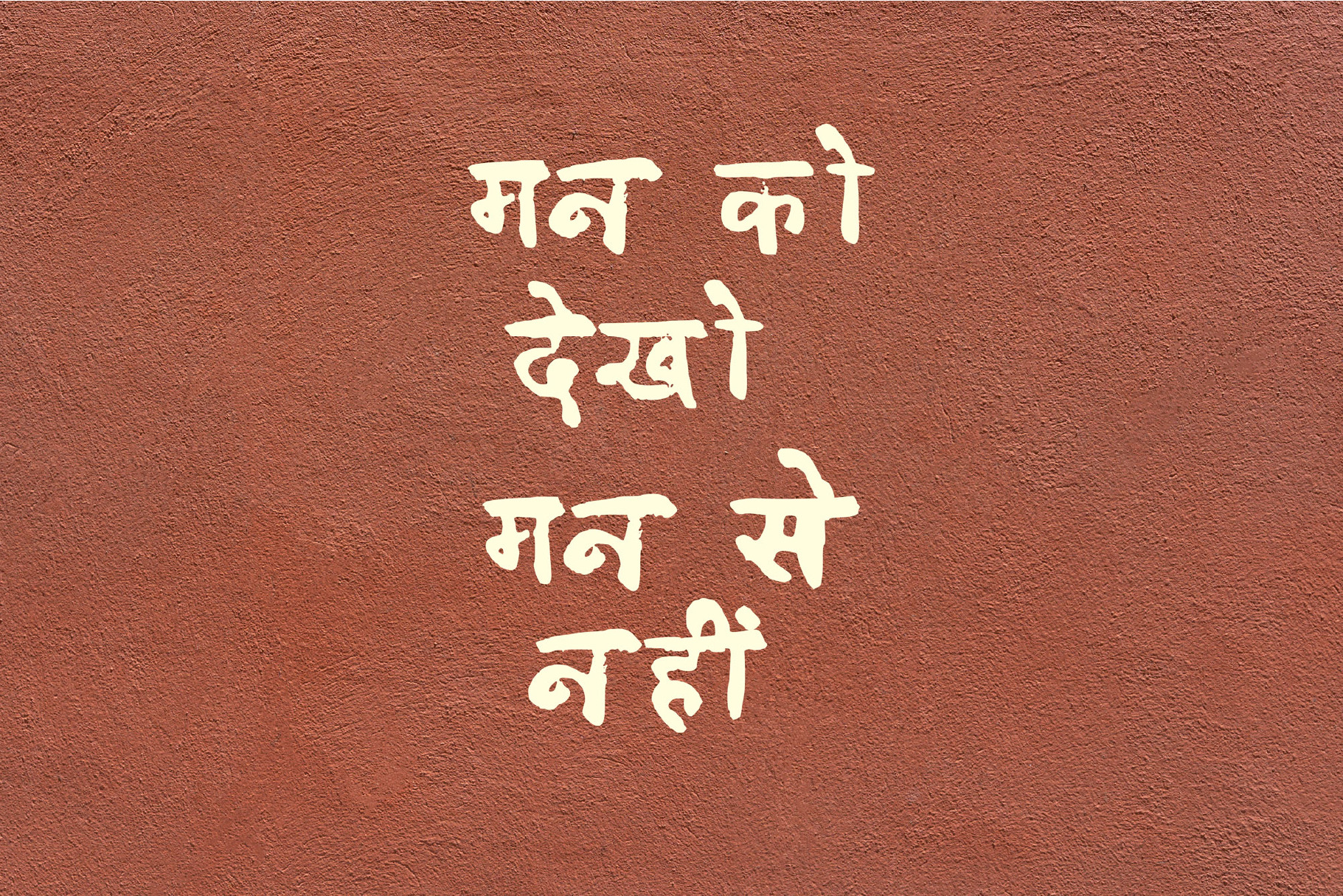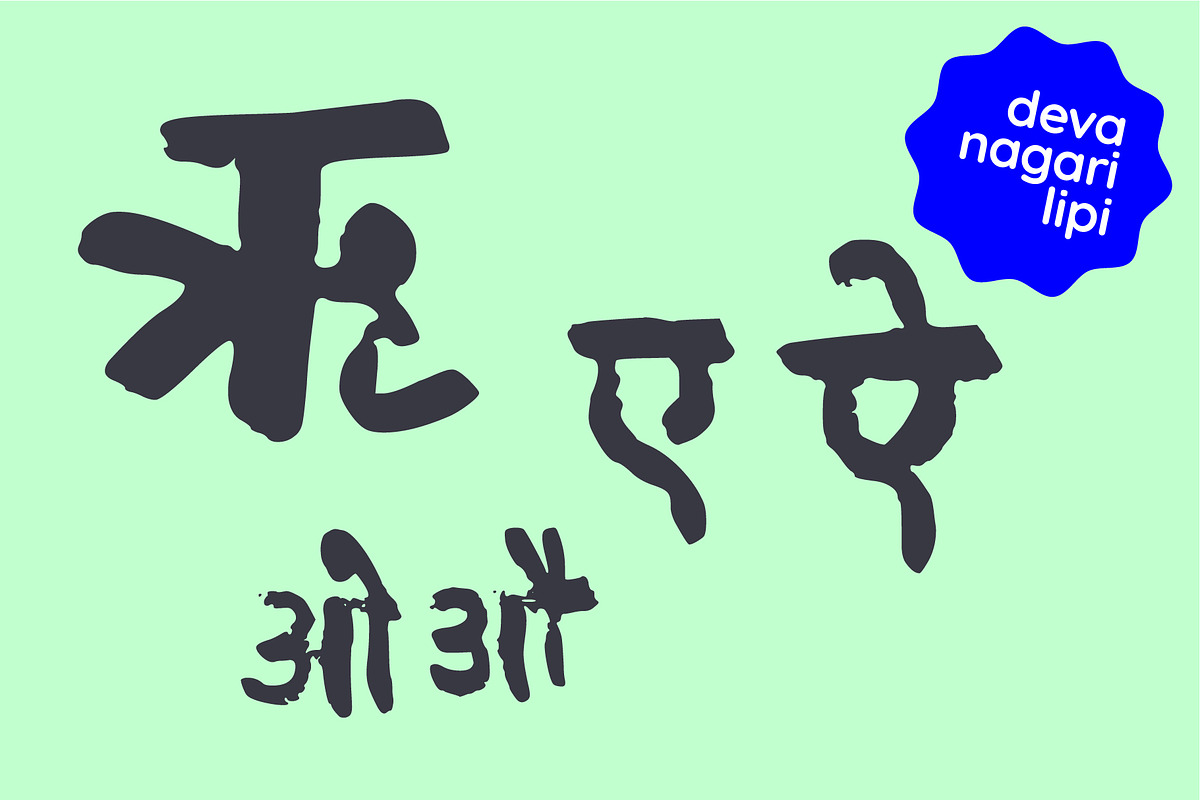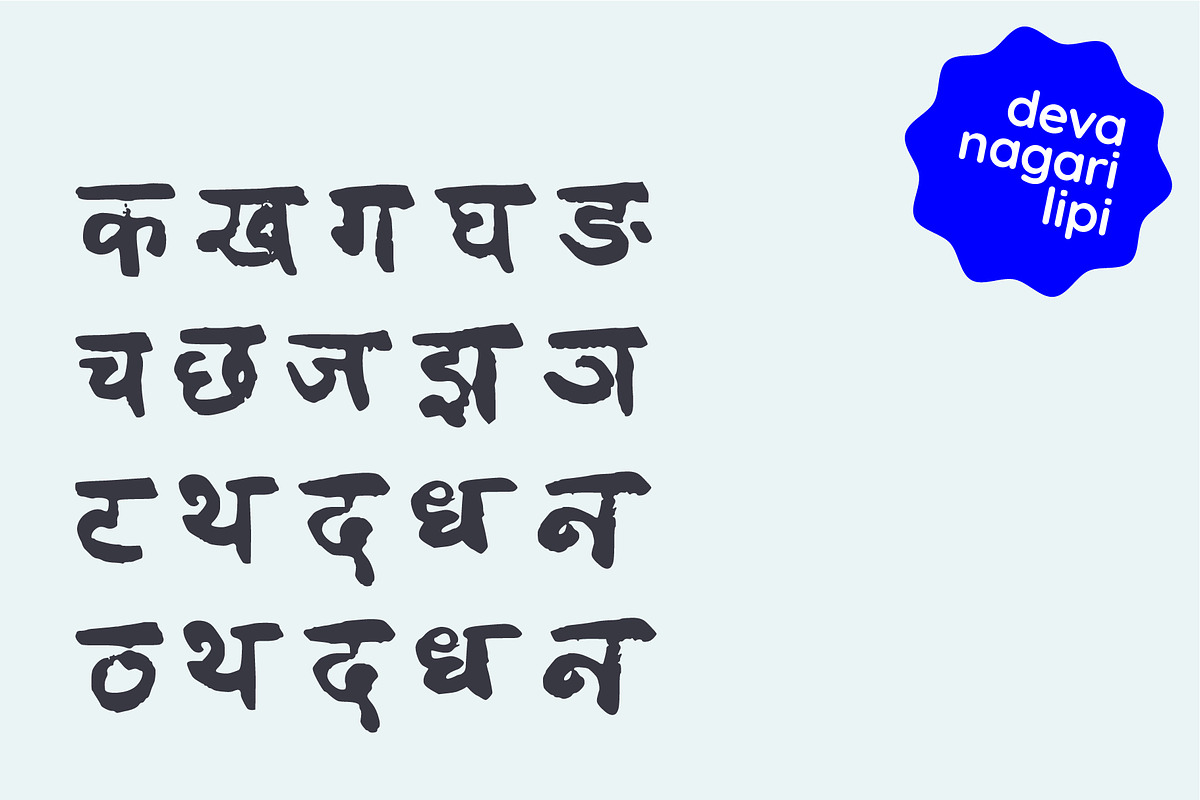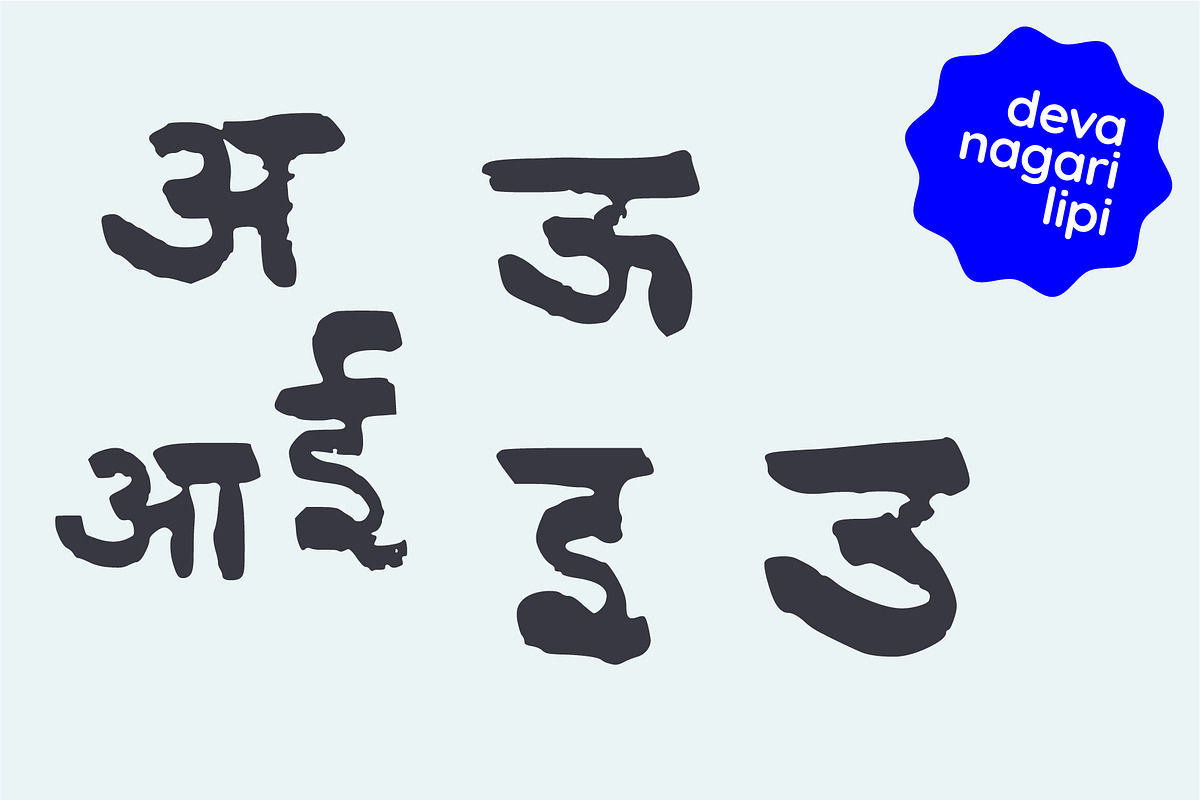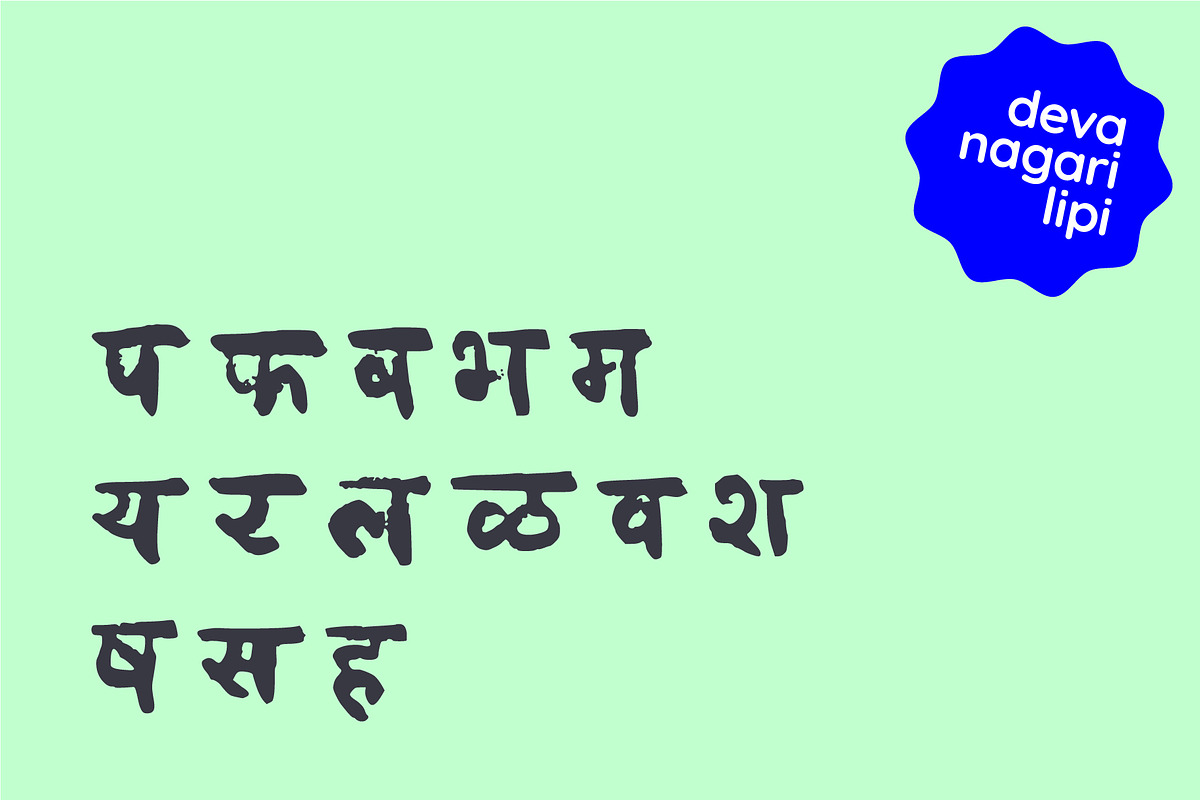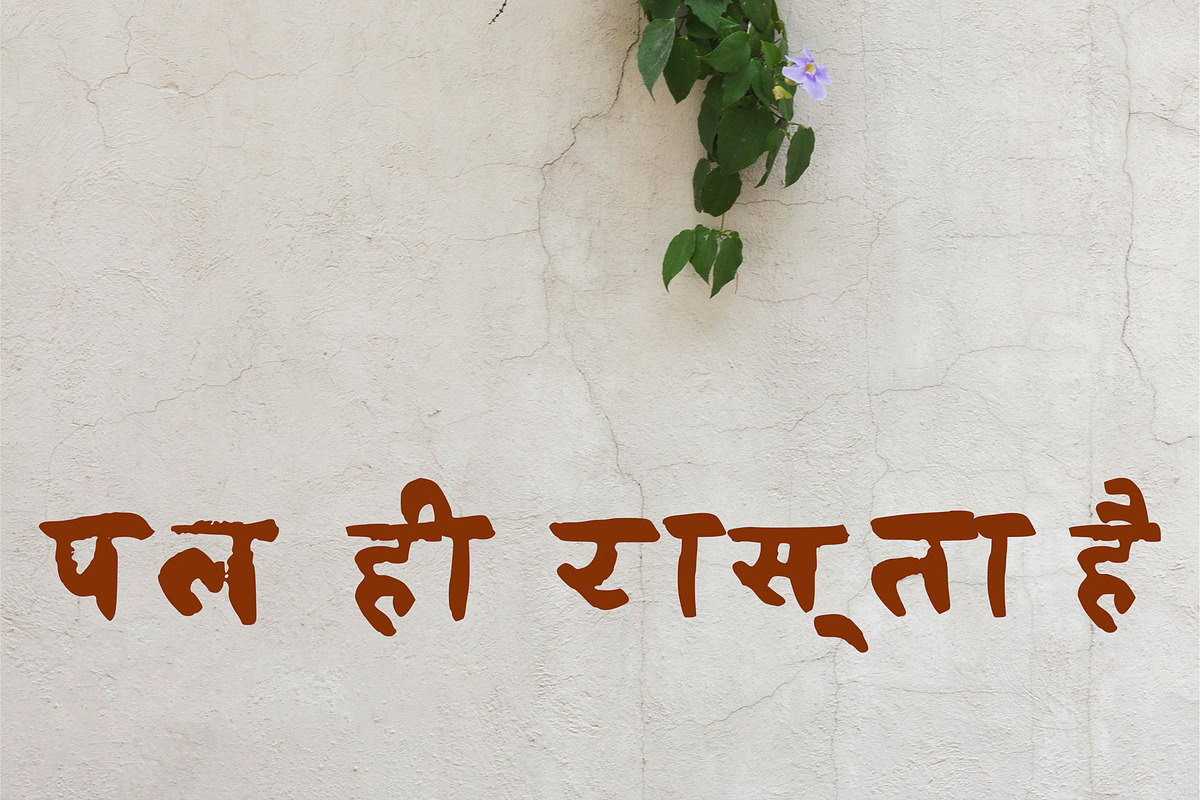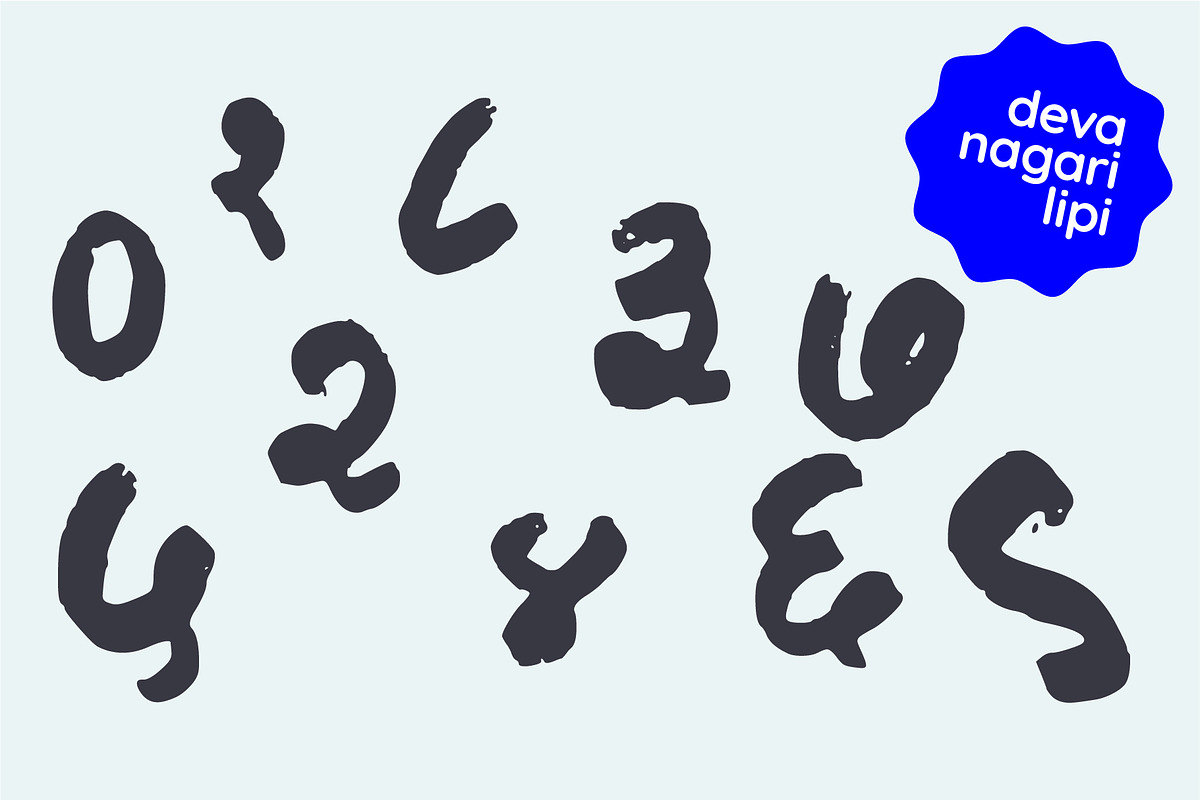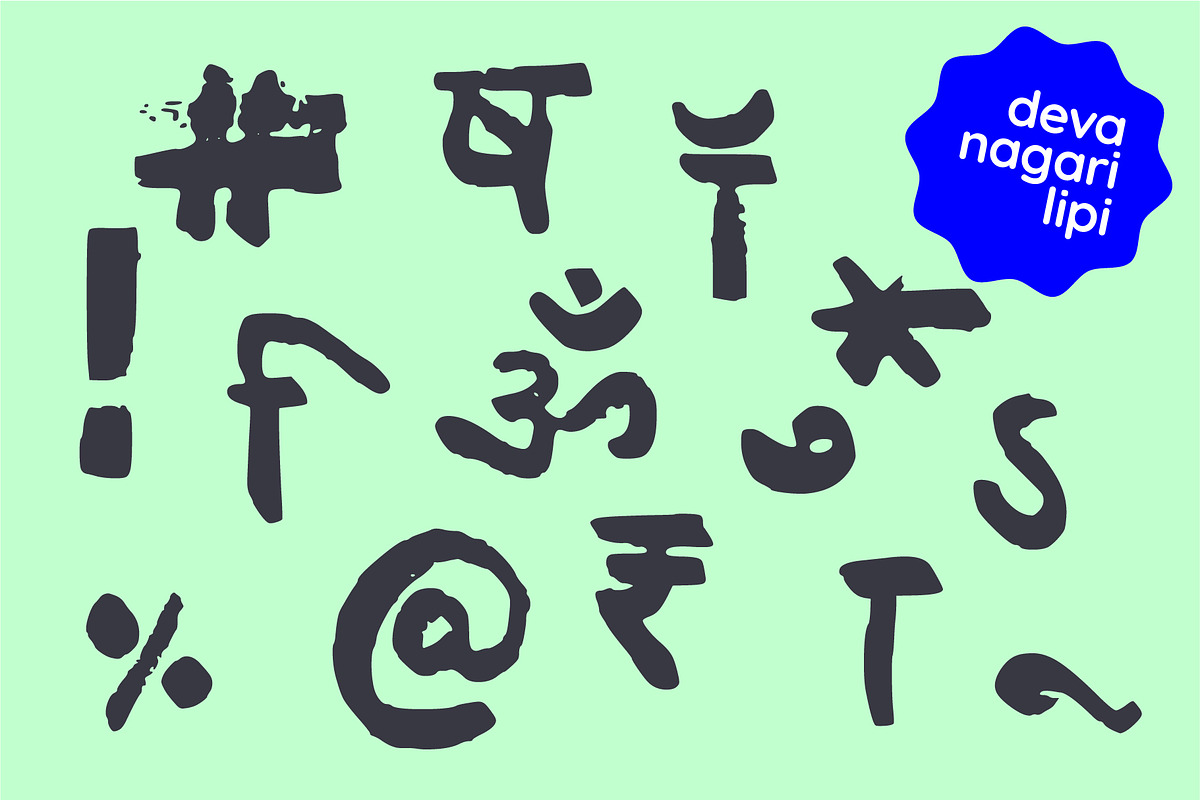
Devanagari Crayon Font - Hindi
Perfect for display font, suitable for book covers, educational material, graphic design, and more.
Please note, numbers, special characters, currencies, a total of 150 glyphs are included.